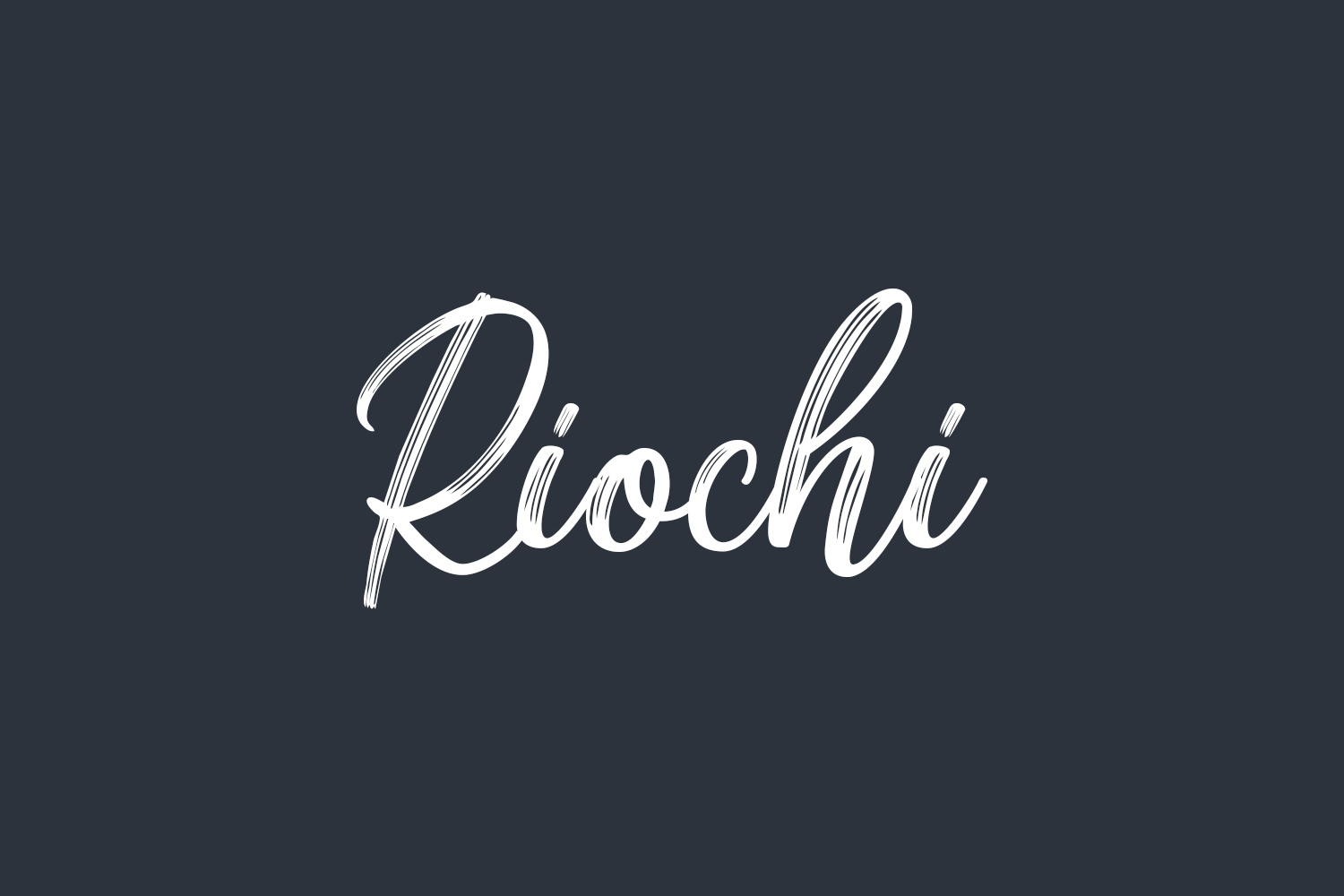
Introducing Riochi Free Font, a stunning duo font featuring both sans serif and script styles. With its remarkable versatility, this font effortlessly enhances a diverse range of designs, taking them to new heights. Incorporate this font into your cherished creative concepts and experience the captivating transformation it brings to life. Riochi Free Font is free for personal use only. Please purchase the full version for commercial use.
Designed by Letterflow